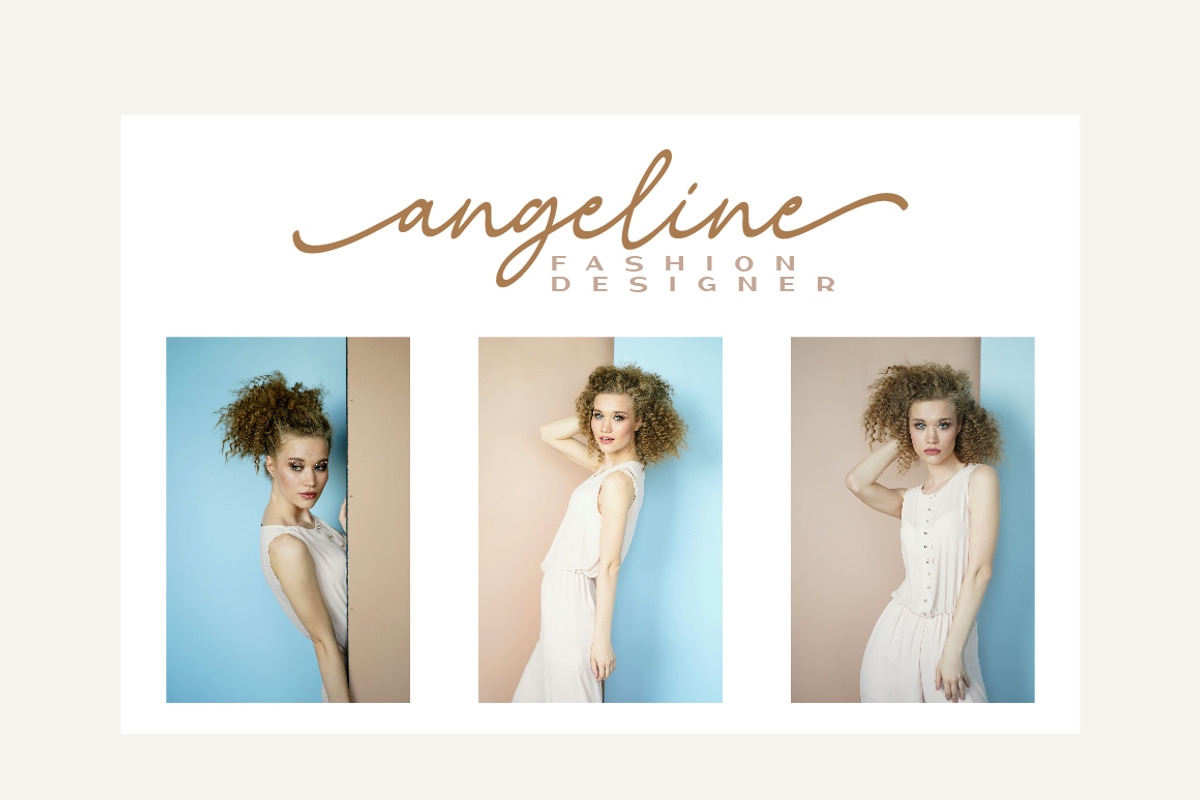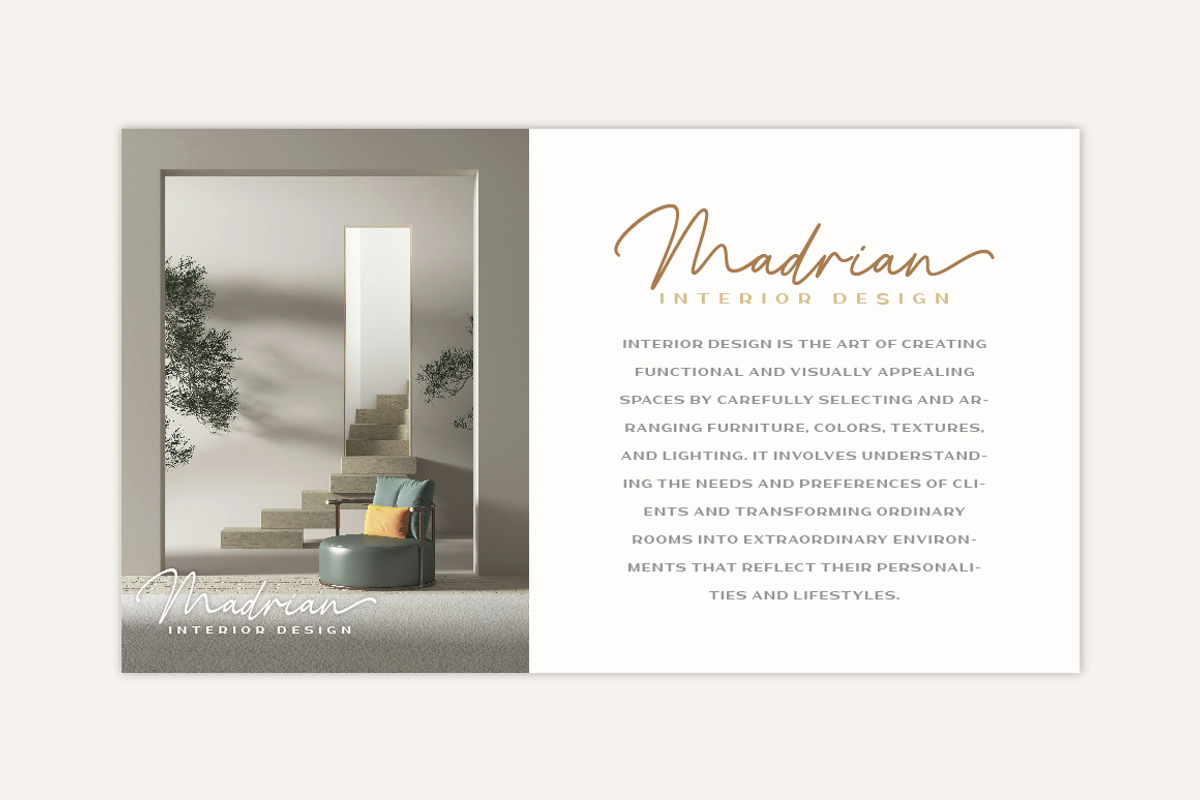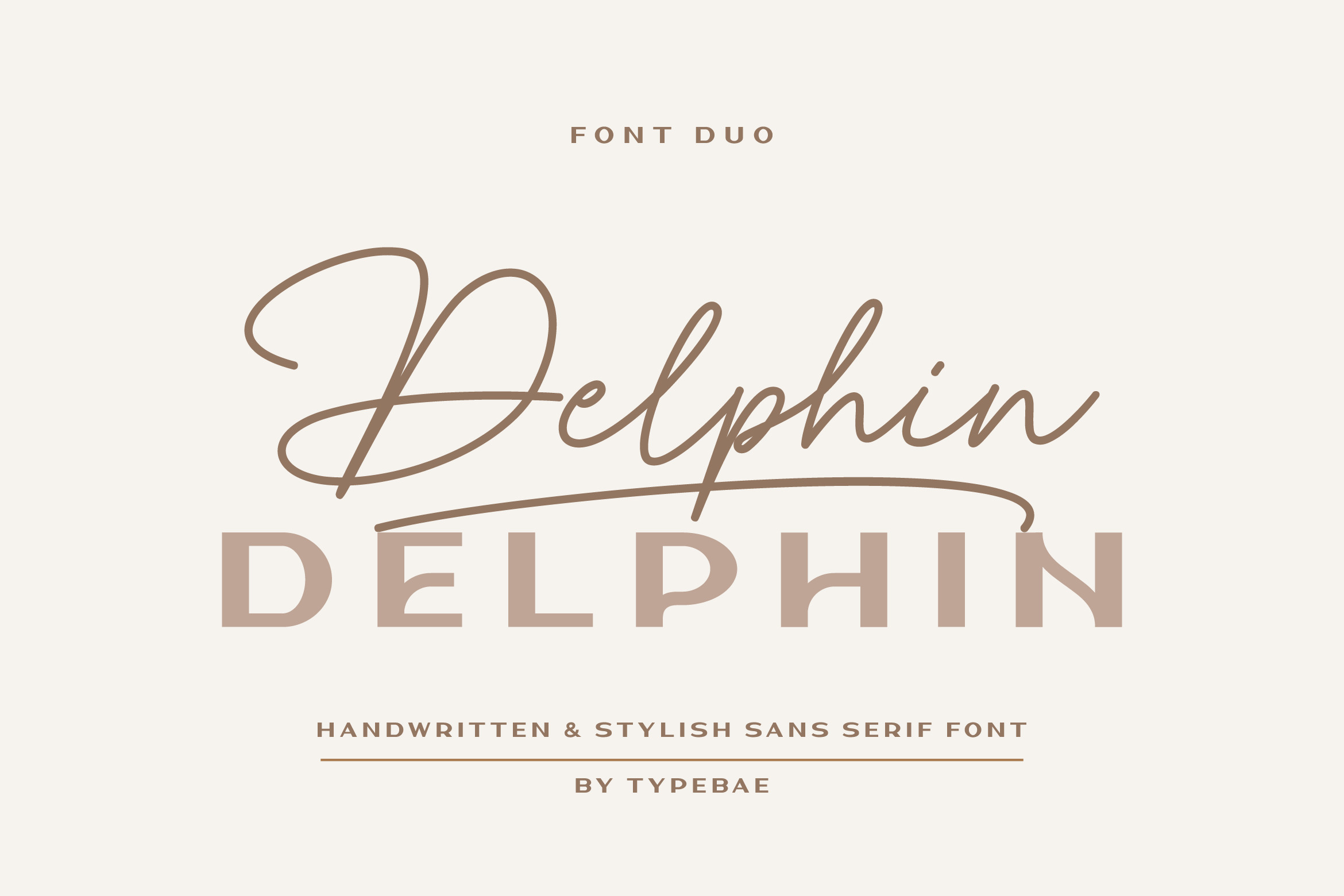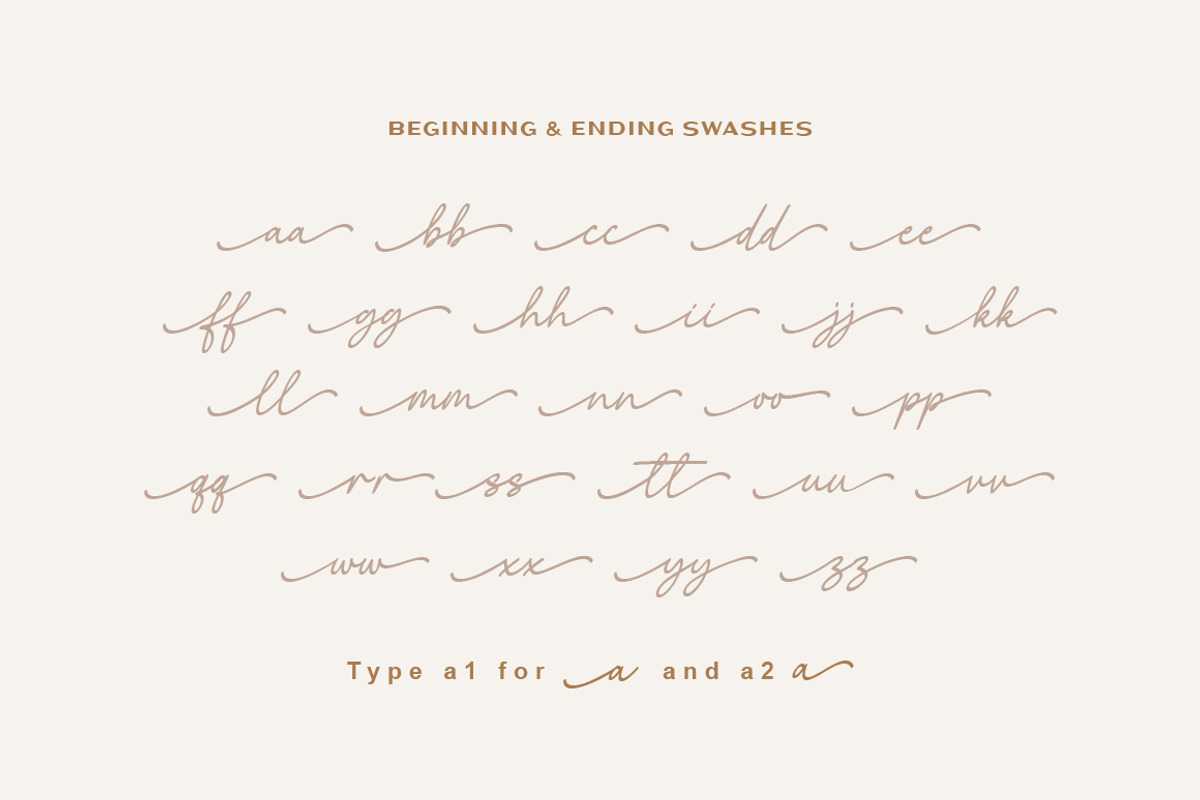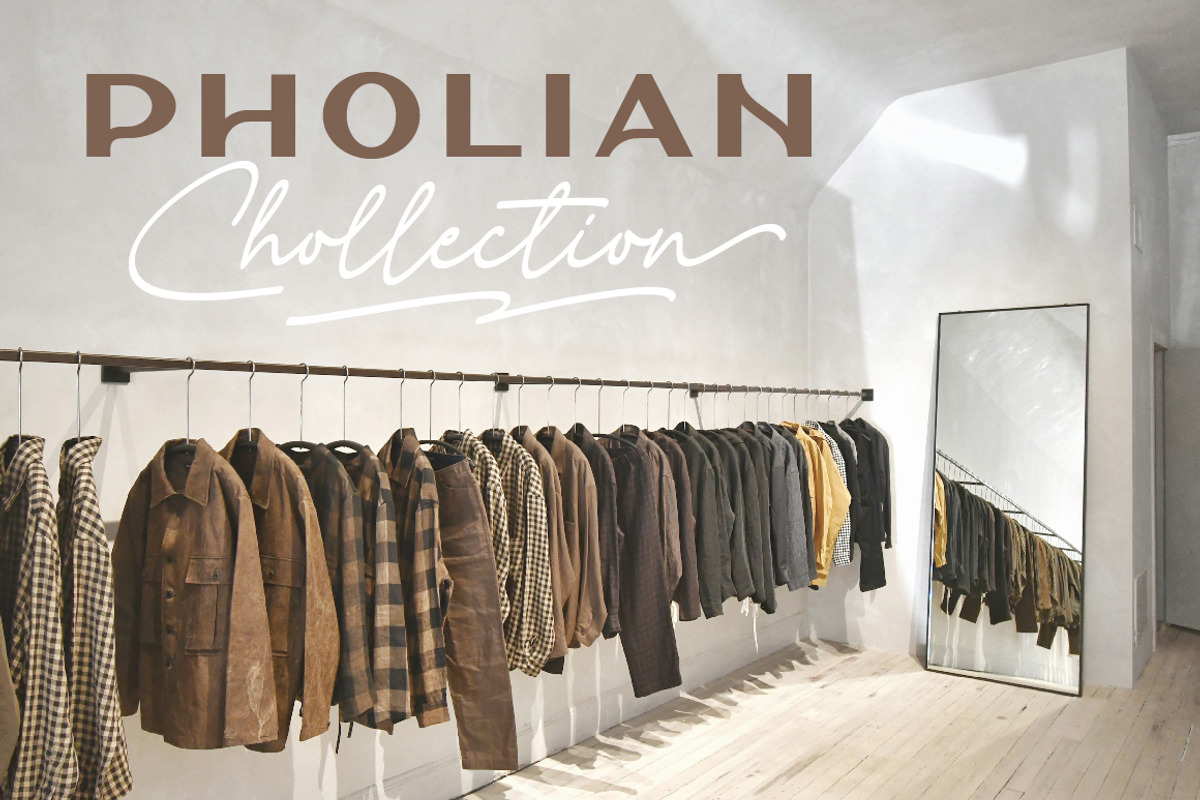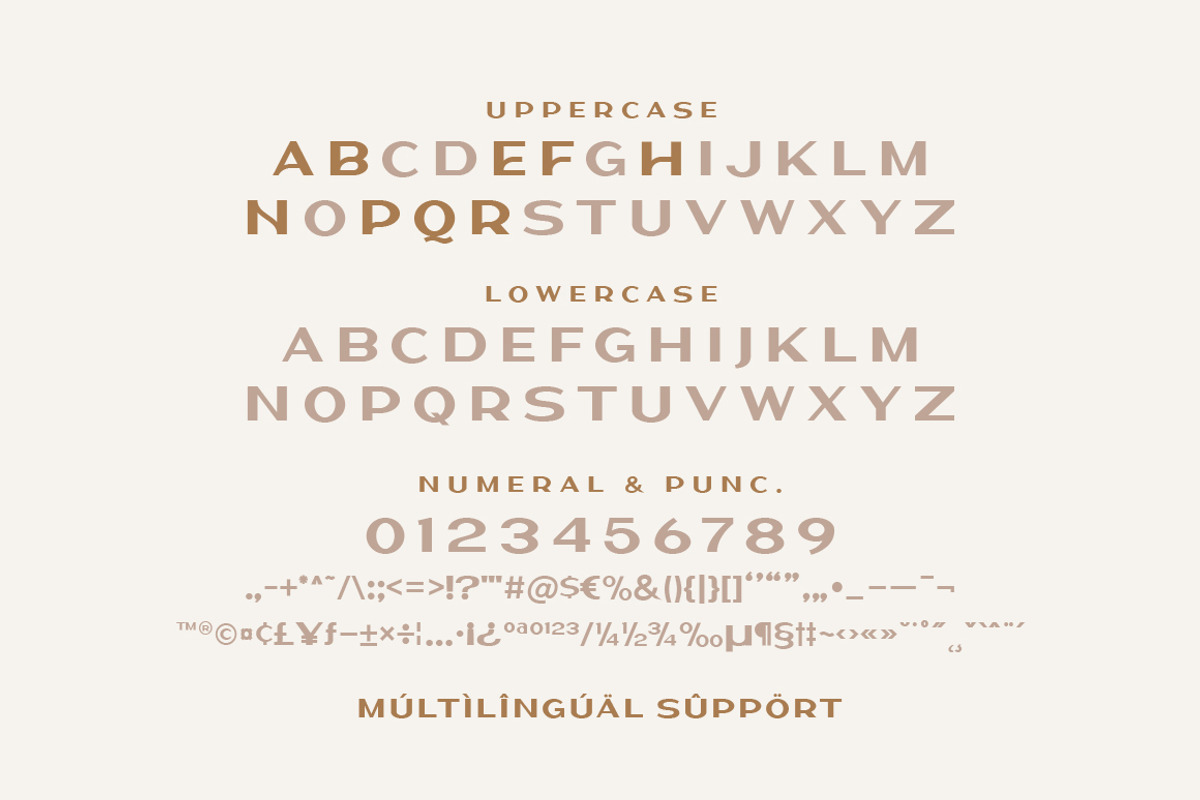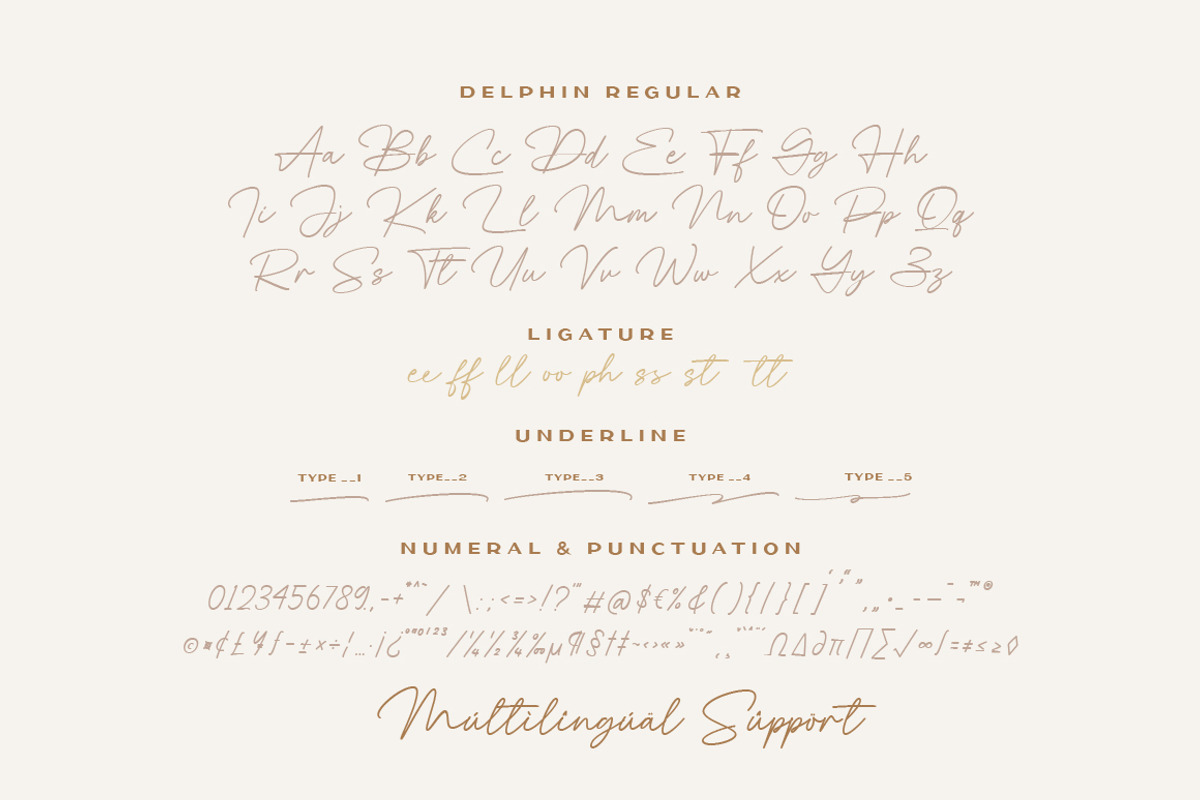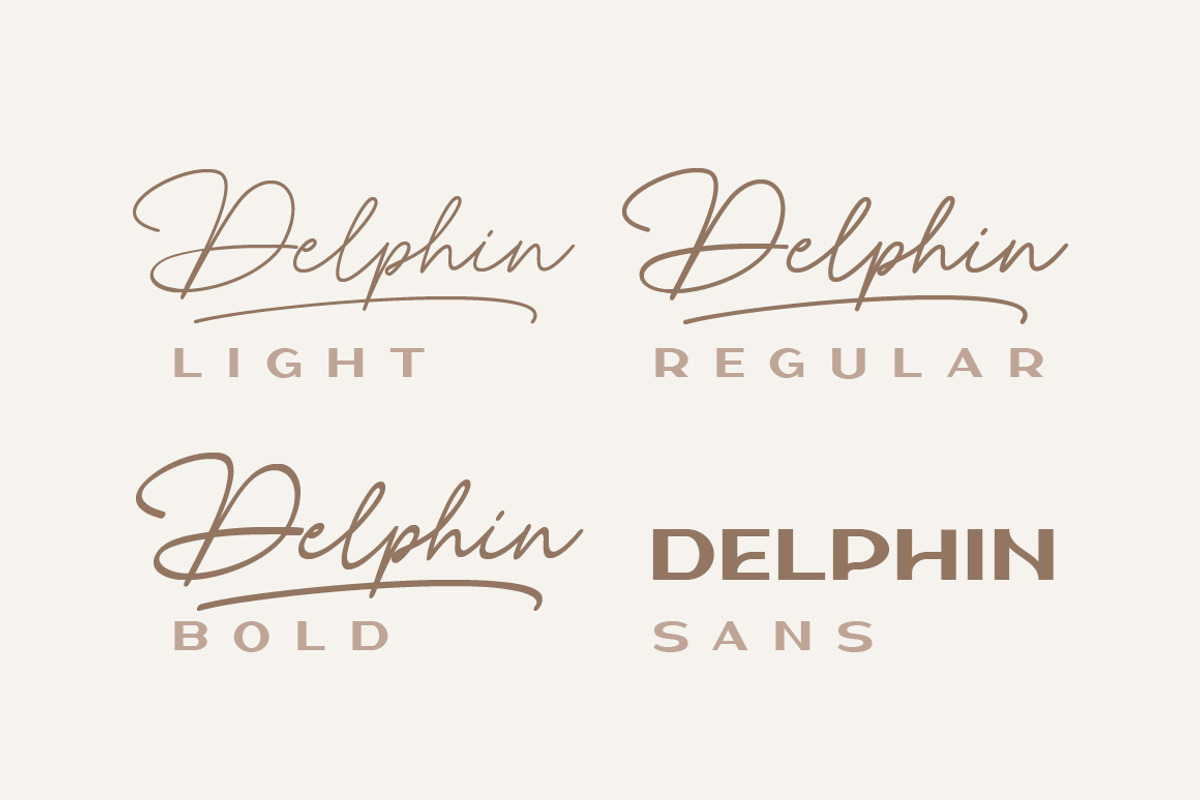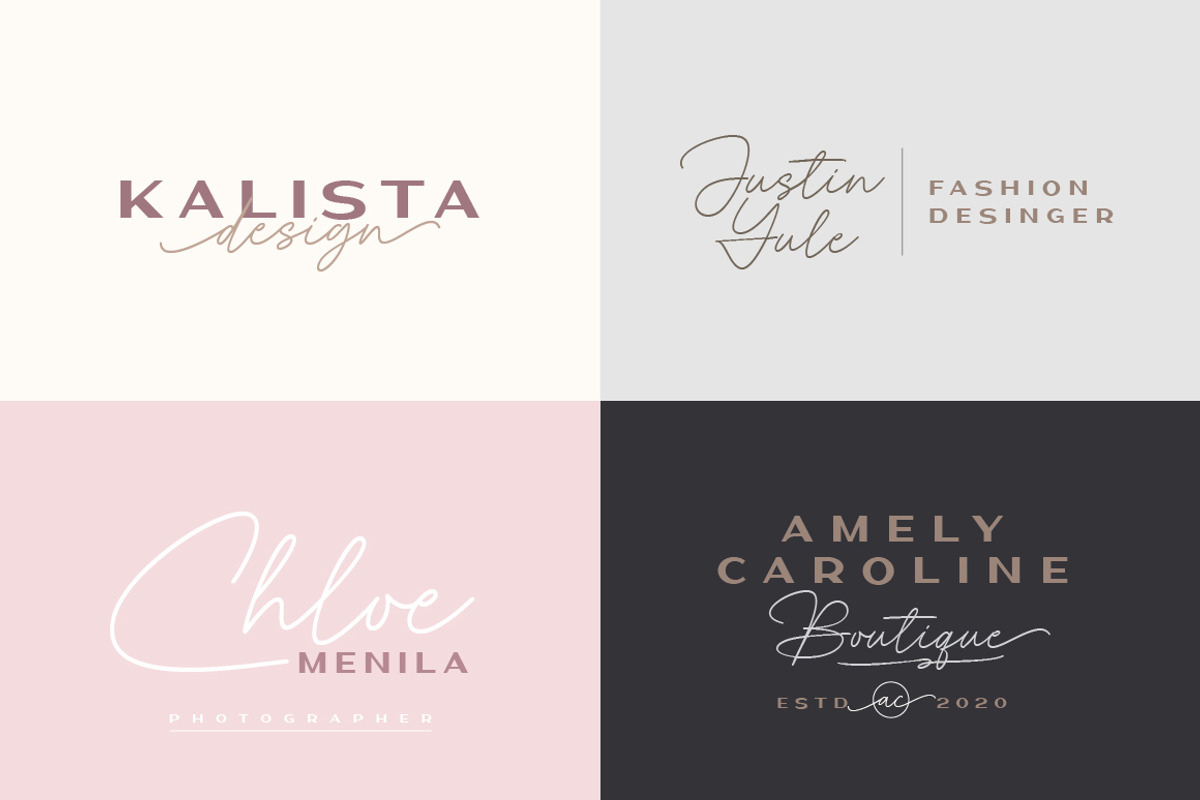
Delphin - Chic Font Duo
Delphin is a pair of beautiful handwritten script and stylish sans-serif fonts designed to contrast and complement each other with elegant beauty and contemporary style. Delphin features graceful swashes at the beginning and end of each letter.
To access swashes, type a1 for initial swash and a2 for final swash. The same method applies to lowercase characters.
Features: Swashes, Ligatures, Numbers, Punctuation, Multilingual Support & PUA Encoded